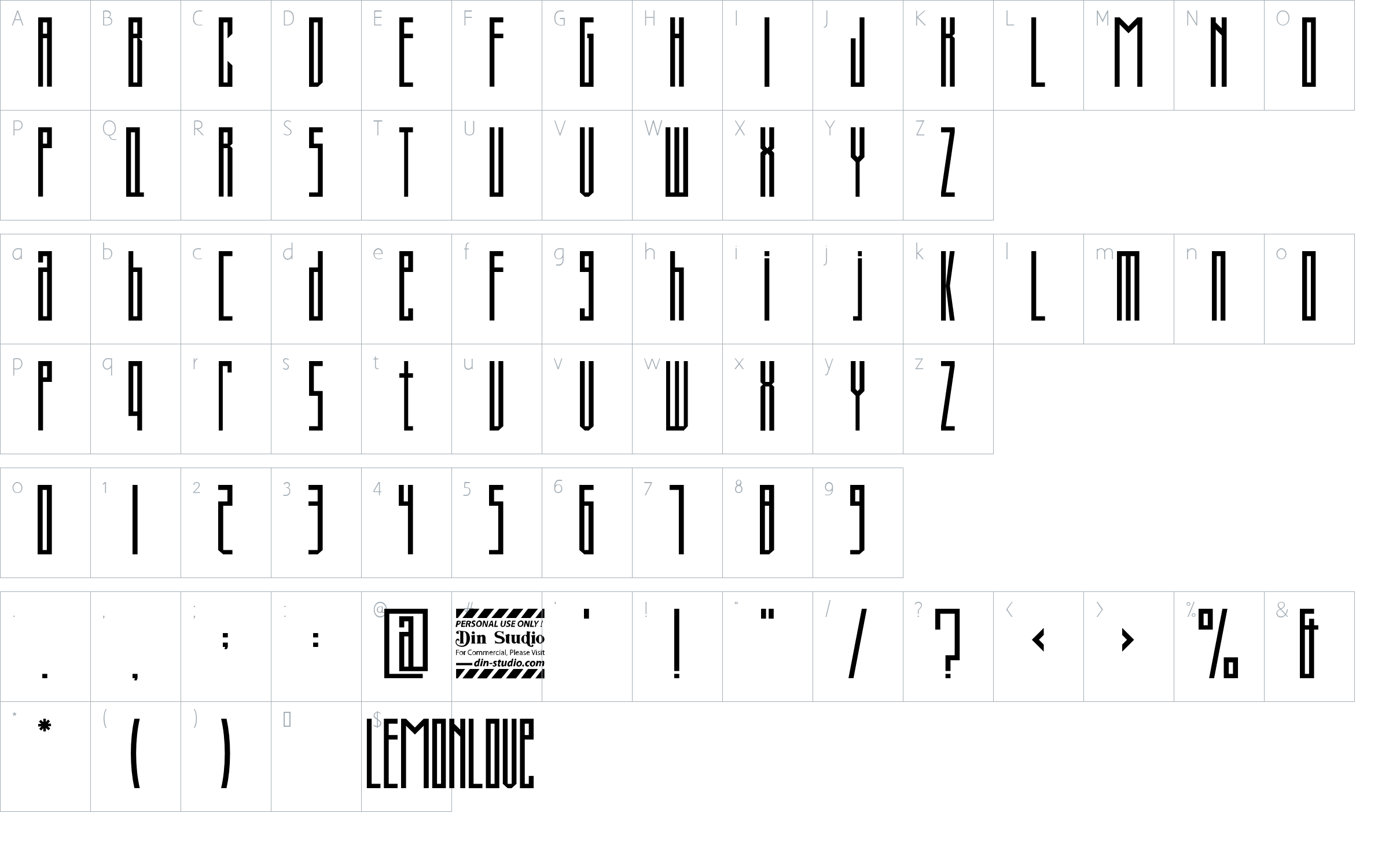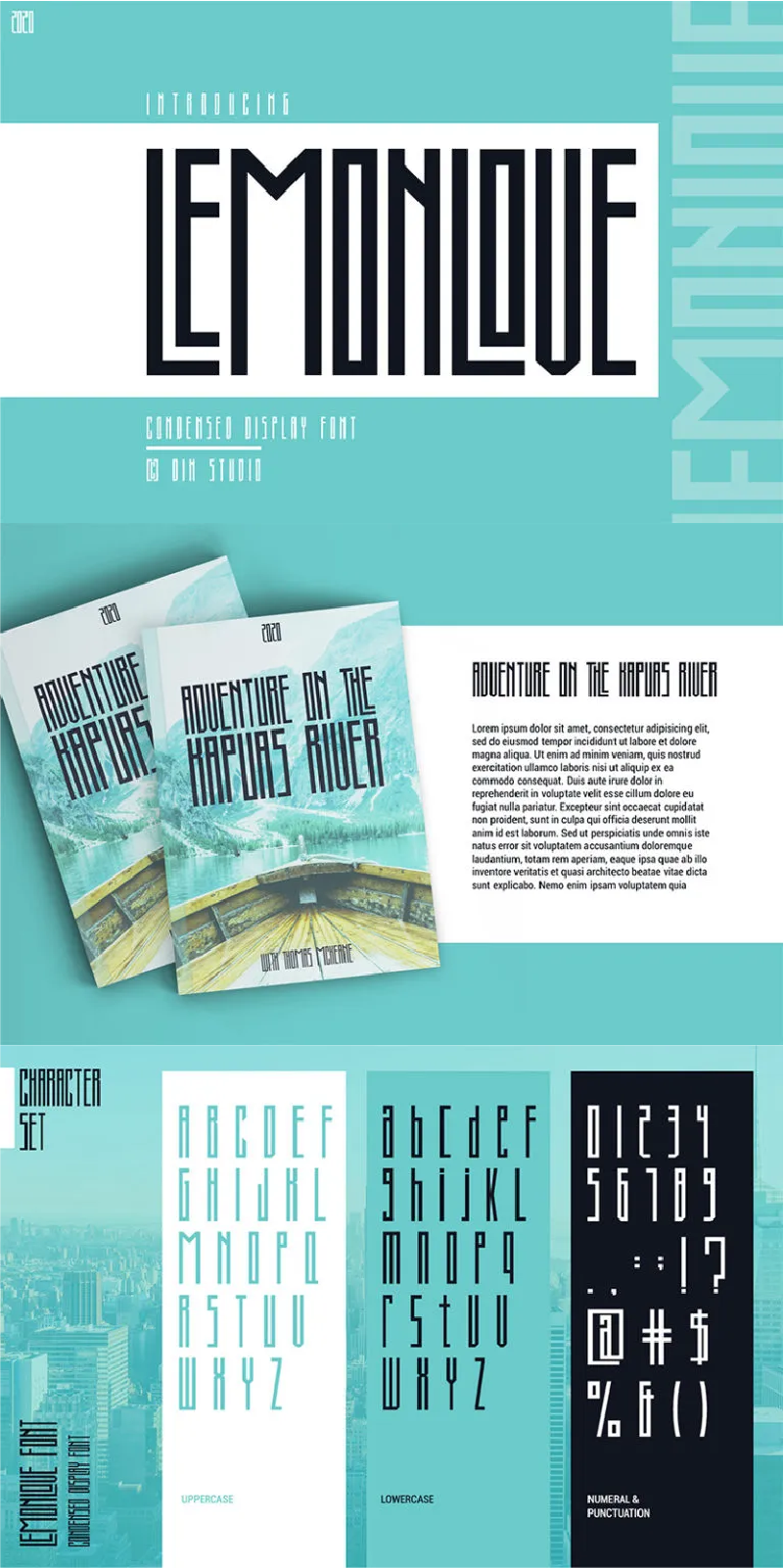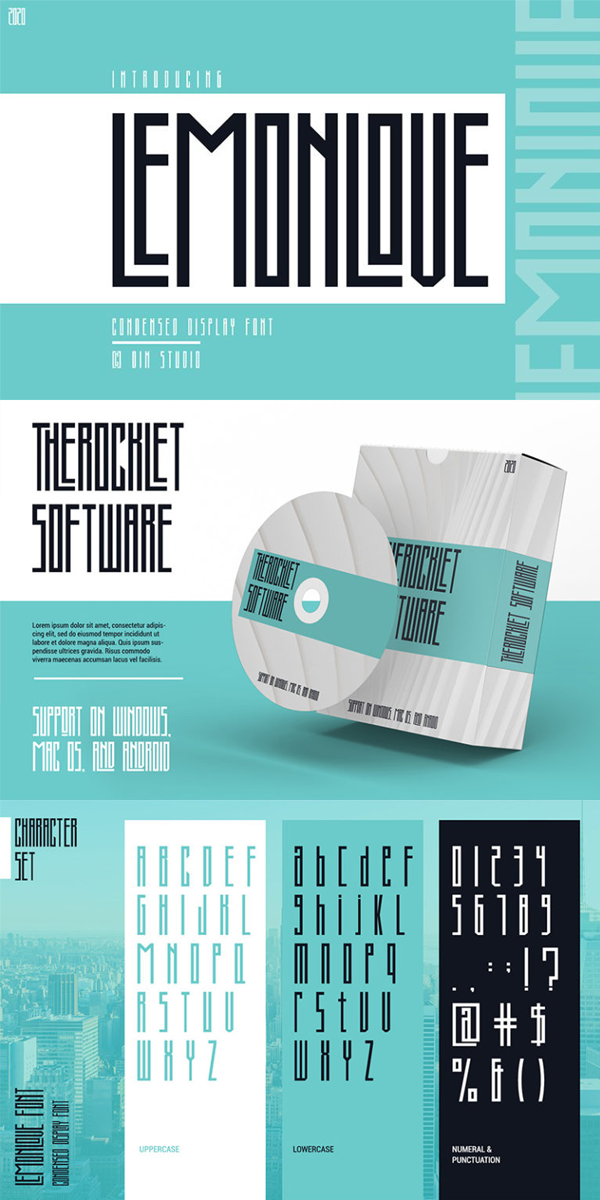
Lemo0n Love Font
About Lemo0n Love
Lemonlove, a condensed display font coming with modern themes. It can be applied to some designs such as logotypes, brands, packaging, quotes, t-shirts, book covers, and other custom designs. See the previews above to get some inspiration on how you can use them. Happy Designing!